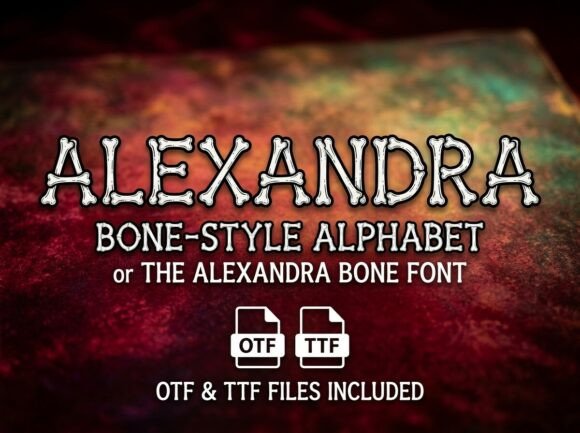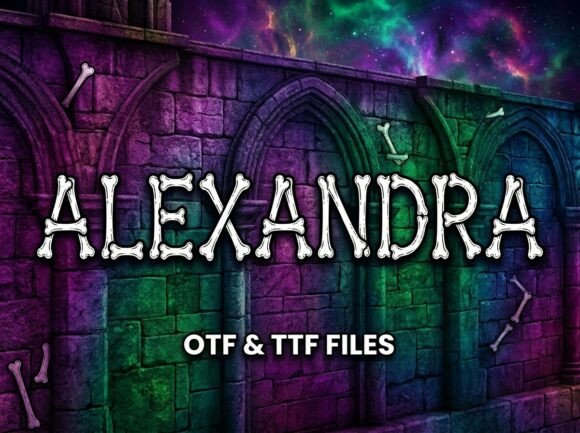
Unleash the Macabre Elegance of Alexandra Font
I’ll never forget the design project that led me to discover the Alexandra font. I was working on a Halloween event branding campaign, and my client wanted a bold, eye-catching typography that would scream “spooky elegance.” I scoured the internet for the perfect font, but nothing seemed to fit the bill – until I stumbled upon Alexandra. This striking display font, meticulously crafted to resemble anatomical bone structures, instantly captured the essence of what I was looking for. In this article, I’ll share my experience with Alexandra, its features, and how to make the most of it in your designs.
What Makes Alexandra Font So Special?
Alexandra font is a “Bone-Style” typeface that is built from realistic bone shapes, featuring detailed joints, weathered textures, and organic curves. This unique design gives the alphabet a skeletal yet artistic feel, making it perfect for projects that require a touch of macabre elegance.
- ✨ Unique and striking design that instantly grabs attention
- ✅ Highly legible, despite its unconventional design
- 🎨 Versatile and can be used for a wide range of projects, from Halloween events to horror-themed movies and gothic apparel designs
- 💻 Works seamlessly with OpenType features, glyphs, and stylistic alternates
- 🤔 May not be suitable for body text or small font sizes, as it can be overwhelming
- ⚠️ Limited use of punctuation marks and special characters
The Story Behind Alexandra Font
The Alexandra font was designed by a team of creatives who wanted to push the boundaries of typography. Inspired by anatomical bone structures, they crafted a unique and striking font that would capture the essence of macabre elegance. With its detailed joints, weathered textures, and organic curves, Alexandra font is a true masterpiece.
| Font Name | Alexandra Font |
| Author | greenvill |
Q: Is Alexandra font suitable for body text?
A: No, Alexandra font is best used for headlines or titles, as it can be overwhelming for body text or small font sizes.
Q: Is Alexandra font available in different styles or weights?
A: Currently, Alexandra font is available in a single style, but the design team may release additional styles or weights in the future.